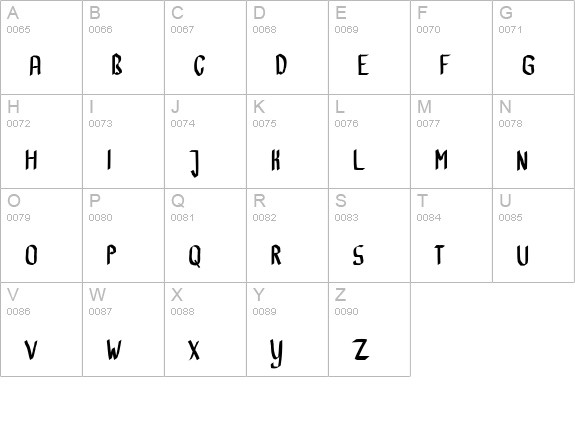
CalliBrush Font Details
CalliBrush font is a stunning and elegant typeface that beautifully captures the essence of calligraphy with its graceful curves and flowing strokes. Perfect for adding a touch of sophistication to any project, this font exudes a sense of timeless beauty and class. What sets CalliBrush font apart is its versatility - whether you're designing invitations, posters, logos, or any other creative project, this font is sure to make a striking impression. Its smooth and polished appearance makes it a popular choice for those looking to add a touch of refinement to their designs. The best part? CalliBrush font is completely free to download at FontsMarket.com. This means you can access this gorgeous font without having to worry about any costs. So why wait? Elevate your designs with the elegance and charm of CalliBrush font today!